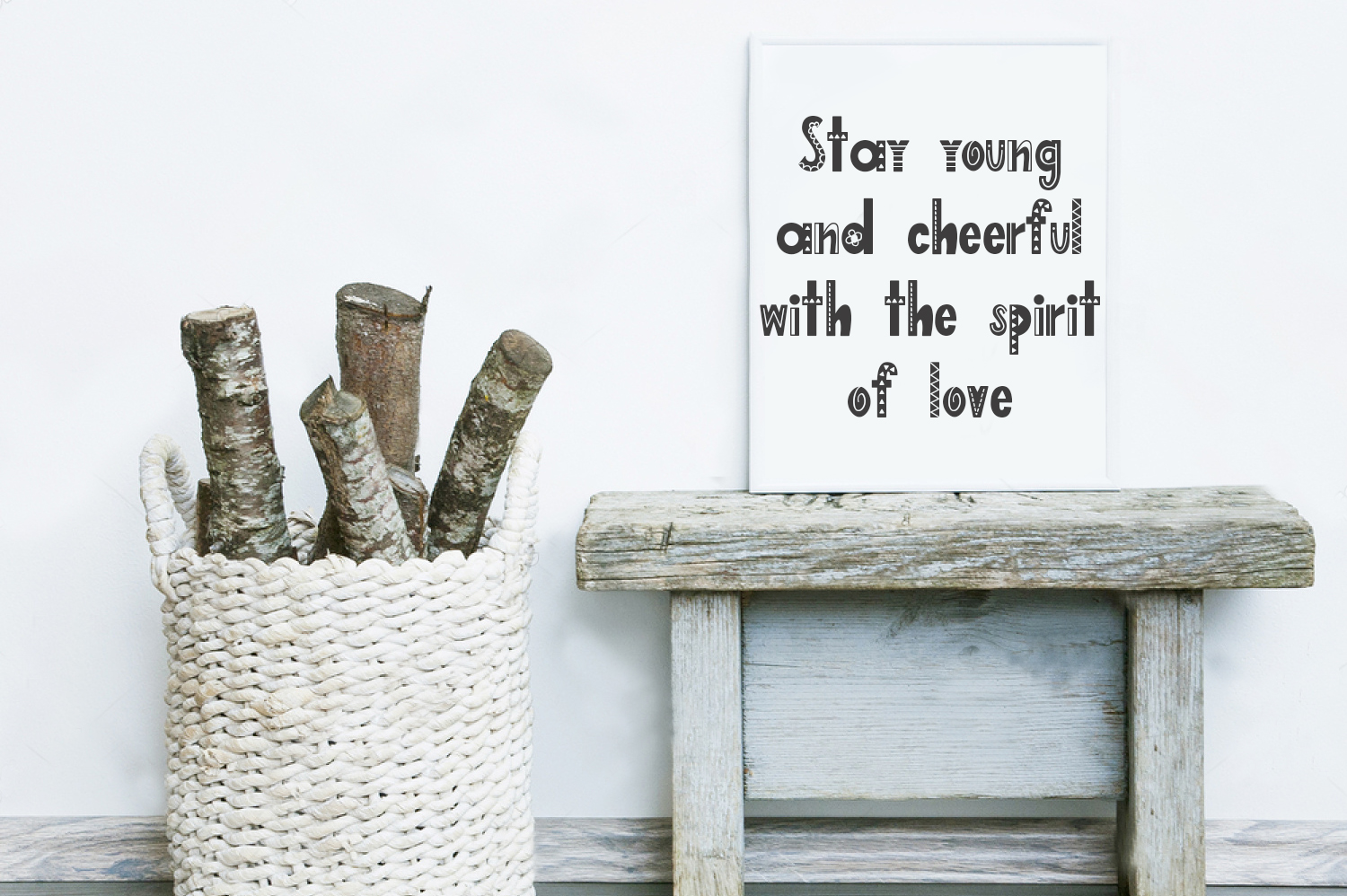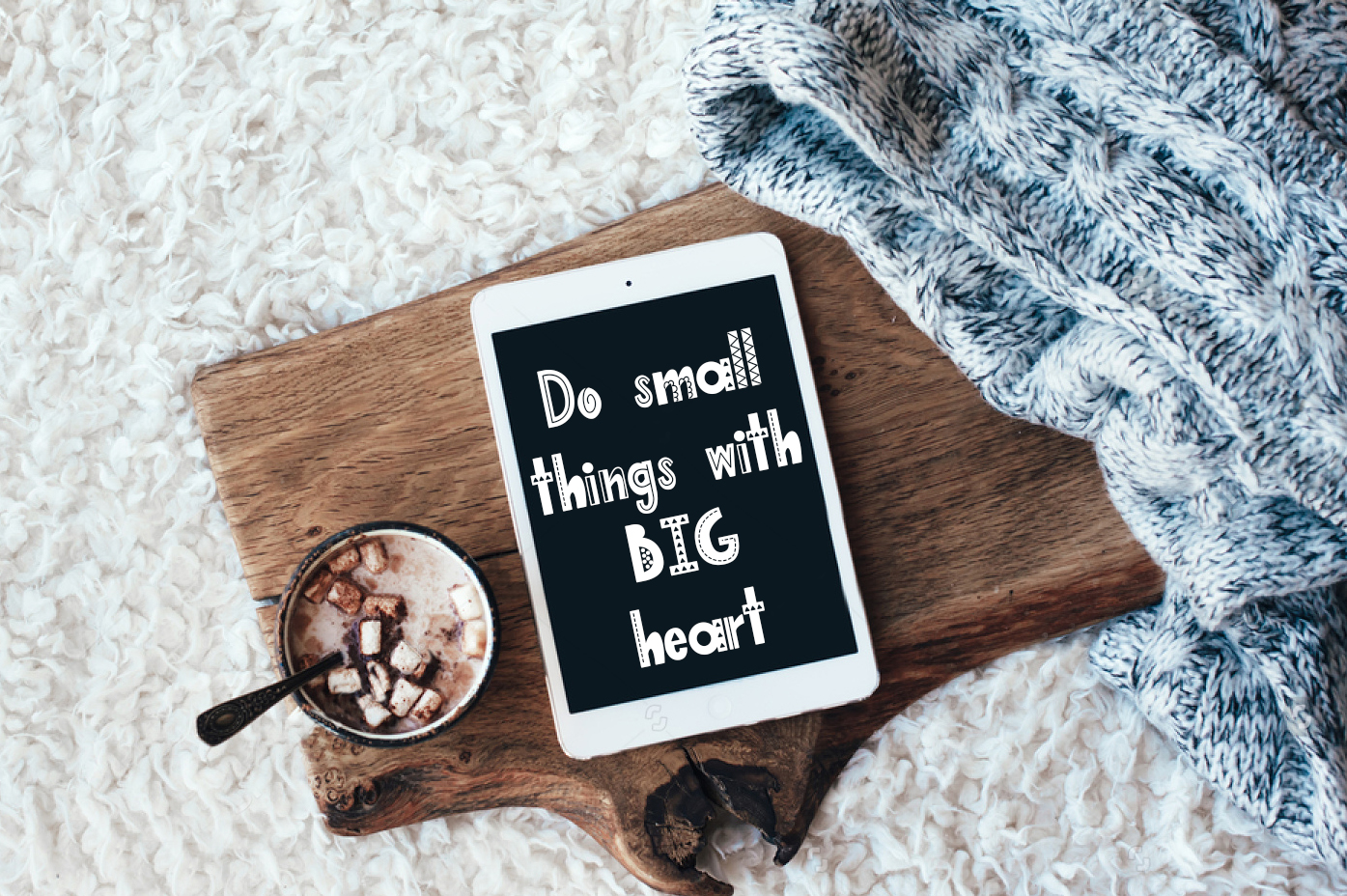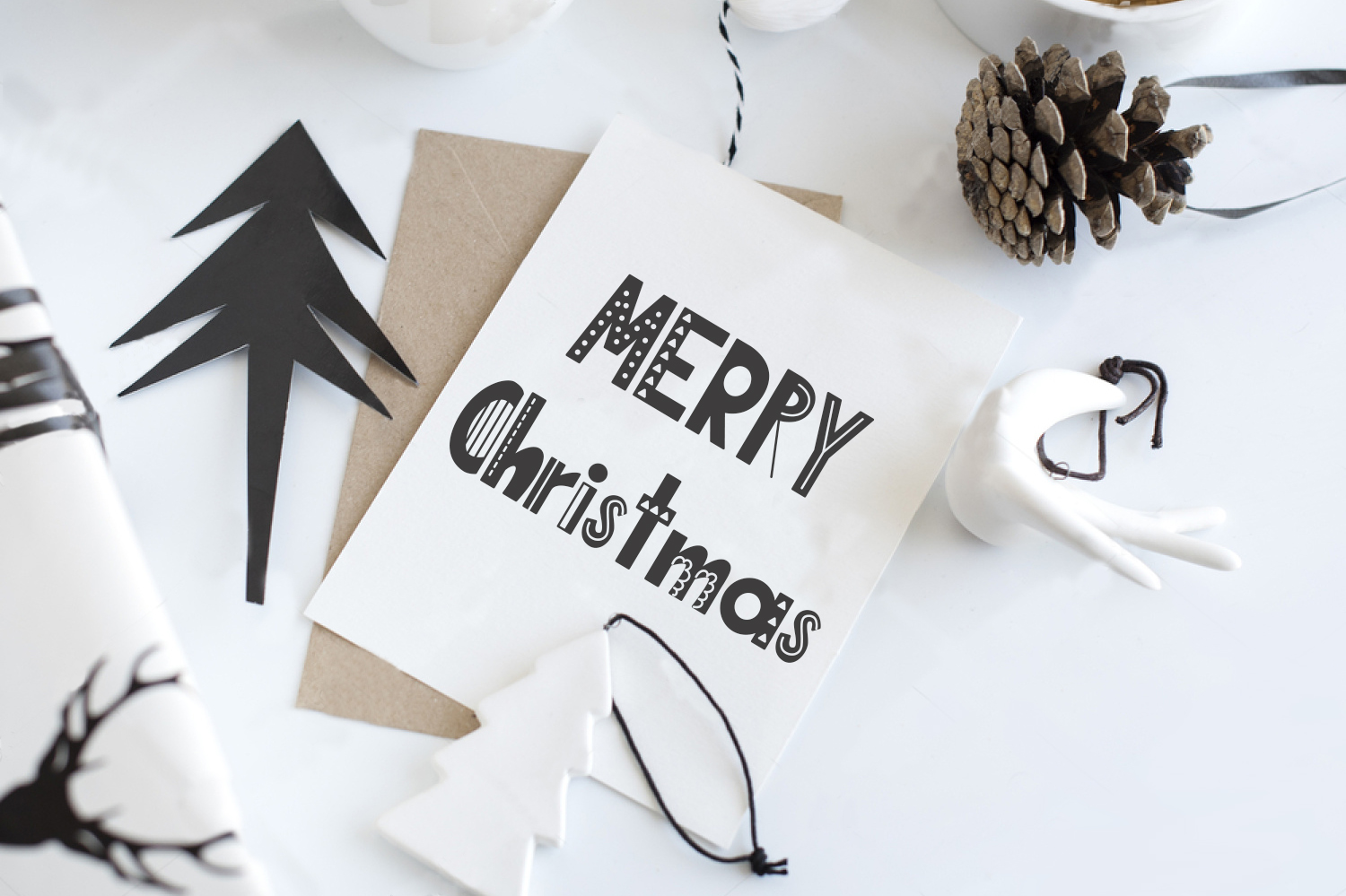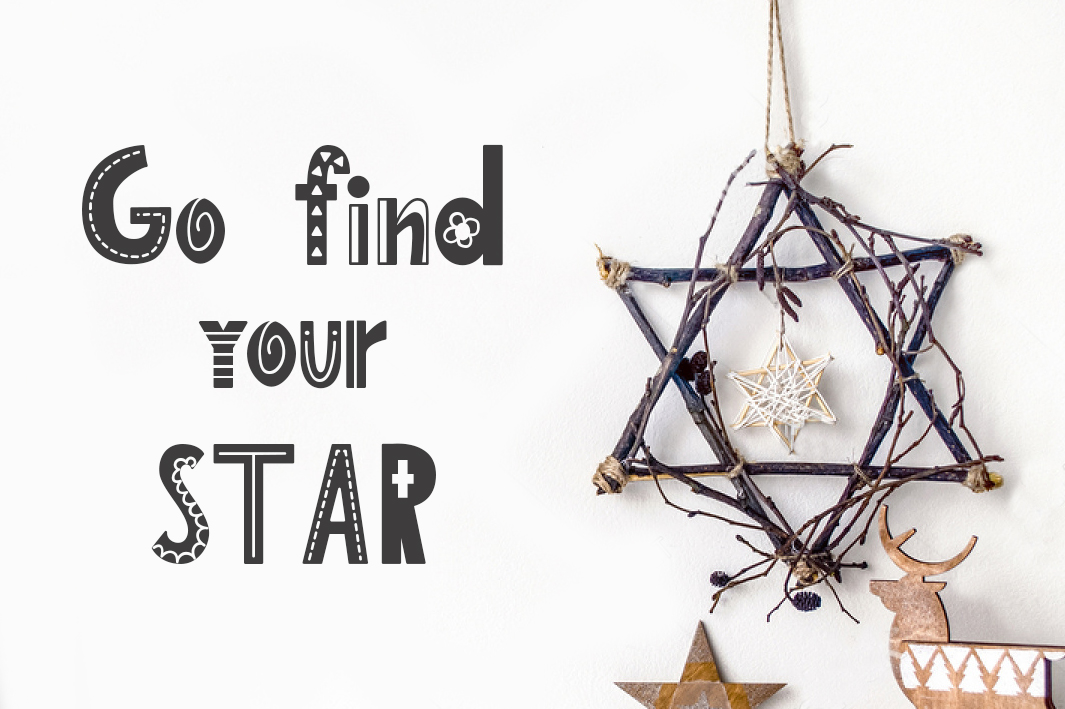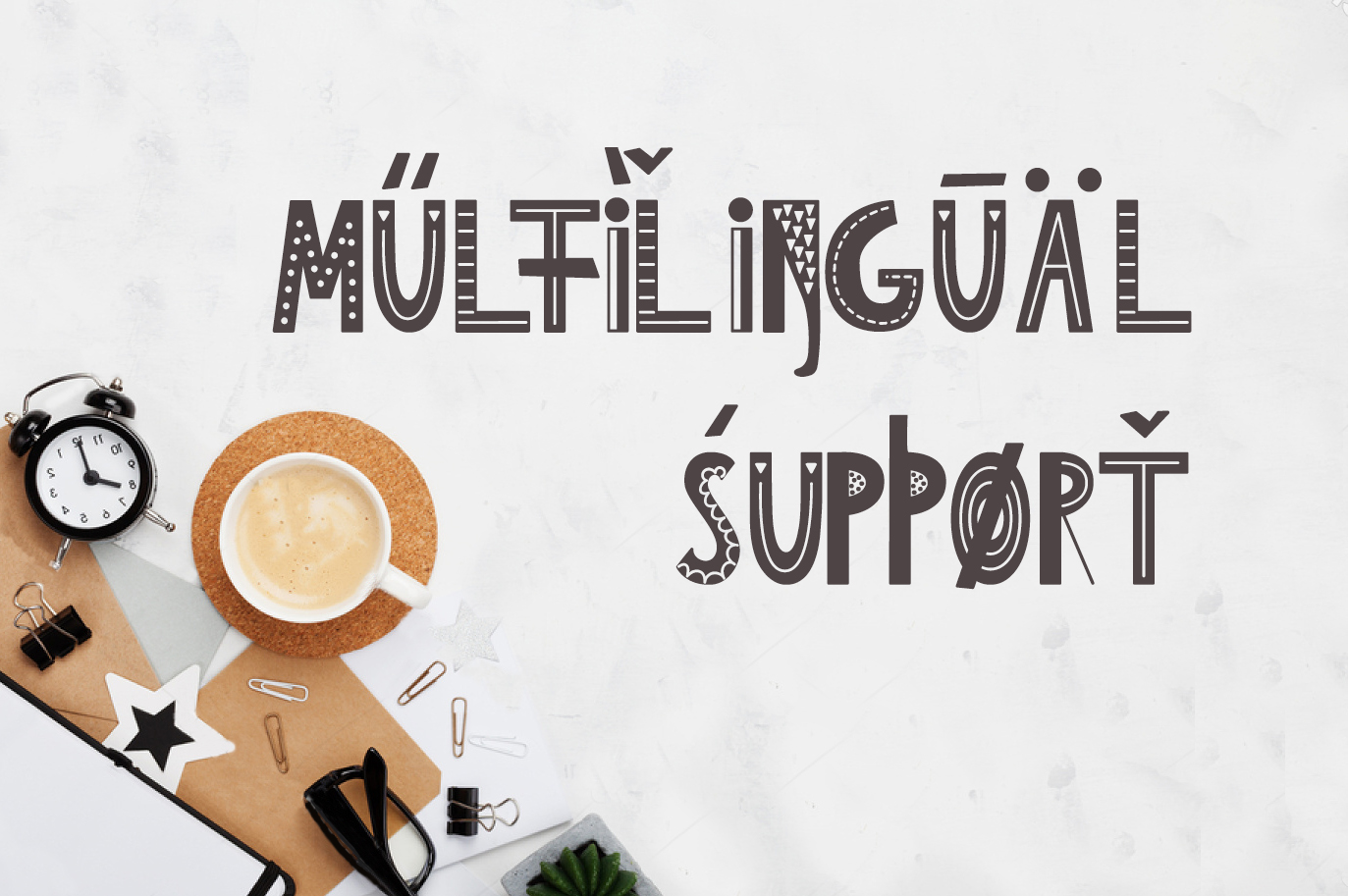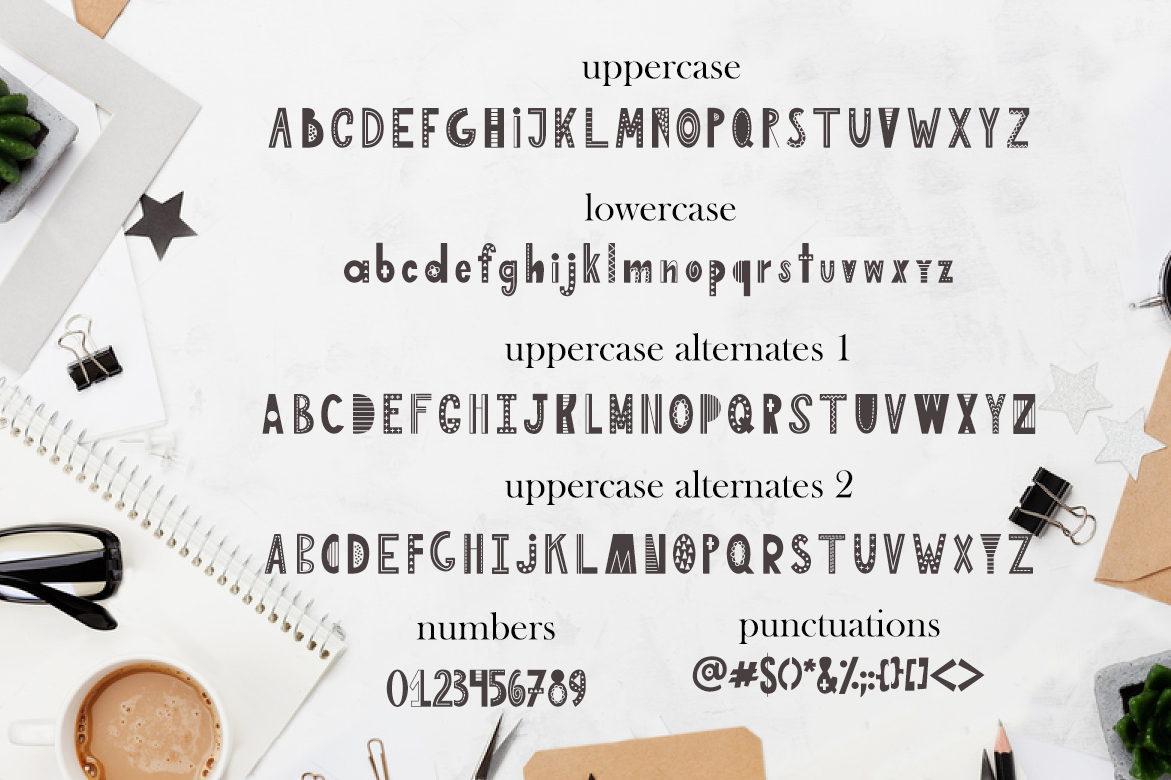
Unleash Your Creativity with the Dreamy Fjord Font
Have you ever been stuck on a design project, staring at a blank canvas with no idea where to start? You’ve poured over inspiration boards, scoured design blogs, and even raided your favorite design magazines – but still, nothing seems to spark the creativity you need. That’s where the Dreamy Fjord Font comes in – a beautiful, Scandinavian-inspired font that will transport you to the serene landscapes of Norway and Sweden.
This stunning font effortlessly blends the elegance of minimalism with the ornate details of traditional typography, making it the perfect addition to any hip and trendy project. Whether you’re designing a brochure, creating a logo, or crafting a social media post, the Dreamy Fjord Font will add a touch of sophistication and style to your work.
- Unique Characteristics: Dreamy Fjord Font features a unique blend of hand-drawn and digital techniques, resulting in a distinctive, dreamy aesthetic with subtle texture and imperfections.
Dreamy Fjord Font Review
I recently had the chance to work with the “Dreamy Fjord Font” and I must say it’s been an interesting experience. Here’s my honest review.
- Unique aesthetic: The font has a distinctive, dreamy quality that can add a touch of whimsy to any project.
- Elegant lines: The font’s curves are smooth and elegant, making it perfect for titles and headings.
- Legibility: The font is highly legible, even at small sizes, which is a must for any font.
- Limited character set: The font’s character set is limited, which may cause issues when working with languages that require a broader range of characters.
- Not suitable for body text: The font’s unique style may make it difficult to read at larger block sizes, making it better suited for titles and headings.
- May not be accessible: The font’s aesthetic may not be suitable for users with certain visual impairments.
Overall impression
The “Dreamy Fjord Font” is a beautiful font that can add a touch of magic to any project. While it has its limitations, it’s perfect for titles, headings, and any project where a unique aesthetic is required.
Tips for Getting the Most Out of Dreamy Fjord Font
Use Dreamy Fjord Font to add a touch of elegance and sophistication to your designs.
Pair it with a clean and simple background to let the font take center stage.
Experiment with different font sizes and colors to create a unique and eye-catching look.
Dreamy Fjord Font is perfect for:
Luxury brand marketing materials
High-end product packaging
Alternatives to Dreamy Fjord Font
Pacifico is a beautiful, elegant script font perfect for creating a romantic and whimsical atmosphere. It is ideal for use in wedding invitations, baby announcements, and other special occasion designs. Compared to Dreamy Fjord Font, Pacifico has a more flowing and cursive feel, making it suitable for longer text passages.
Carolyna Pro is a modern script font with a touch of elegance and sophistication. It is perfect for use in luxury branding, high-end product packaging, and elegant invitations. Compared to Dreamy Fjord Font, Carolyna Pro has a more refined and polished look, making it suitable for formal designs.